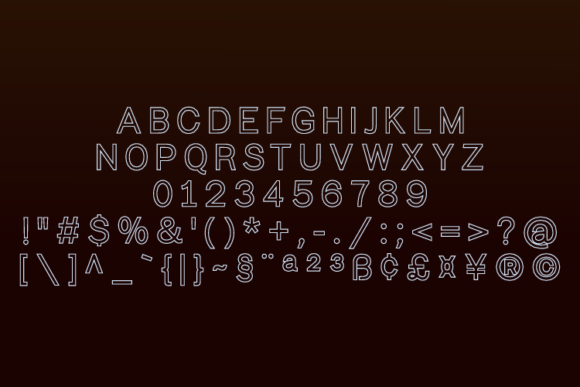
Introduction to Nextart Outline Extra Bold Font Font
Fonts play a crucial role in design, and the Nextart Outline Extra Bold Font font is a typeface that brings both character and versatility to any project. Whether you’re working on a branding project, a website, or a print design, the Nextart Outline Extra Bold Font font offers a unique style that can elevate your work.
Nextart Outline is a fancy, contemporary sans serif font.
In addition to its well-balanced weight distribution, it delivers a touch of elegance which is further emphasized by the carefully adjusted alternates and ligatures .
Key Features of Nextart Outline Extra Bold Font Font
Why Choose Nextart Outline Extra Bold Font Font?
The Nextart Outline Extra Bold Font font is more than just a typeface – it’s a design tool that helps you communicate your message with style and clarity. Its unique character set and versatile design make it suitable for a wide range of applications, from elegant invitations to bold headlines.
With its carefully crafted letterforms and balanced proportions, the Nextart Outline Extra Bold Font font ensures readability and visual appeal across all mediums.
What makes Nextart Outline Extra Bold Font font special?
The Nextart Outline Extra Bold Font font stands out with its unique design, exceptional readability, and versatility across various design applications.